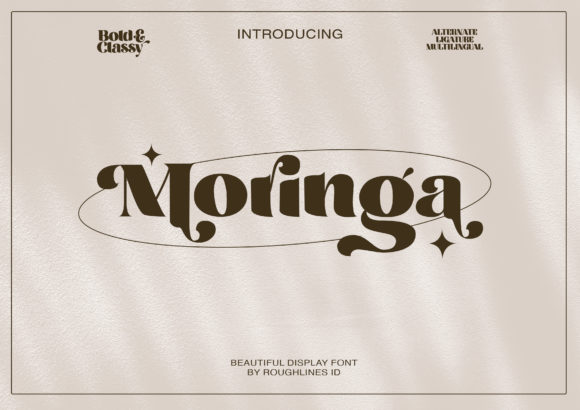
Moringa Font
Moringa is a trendy and cool display font. This font is PUA encoded, which means you can access all of the glyphs and swashes with ease!